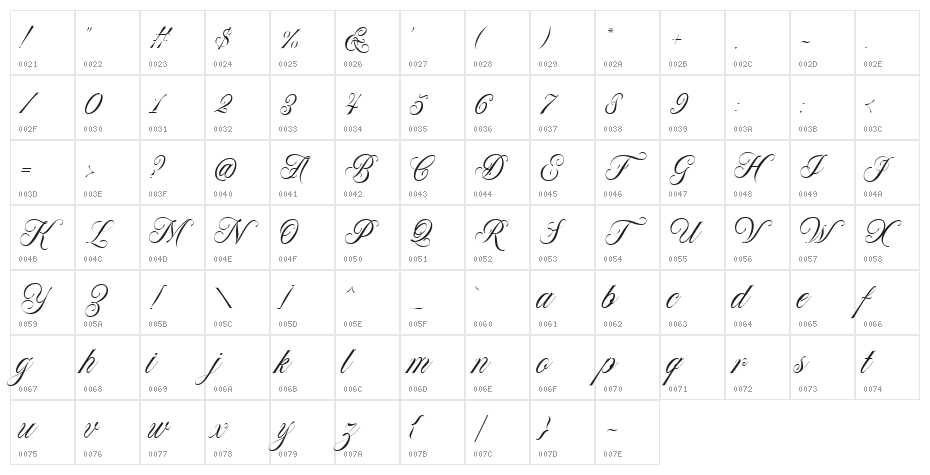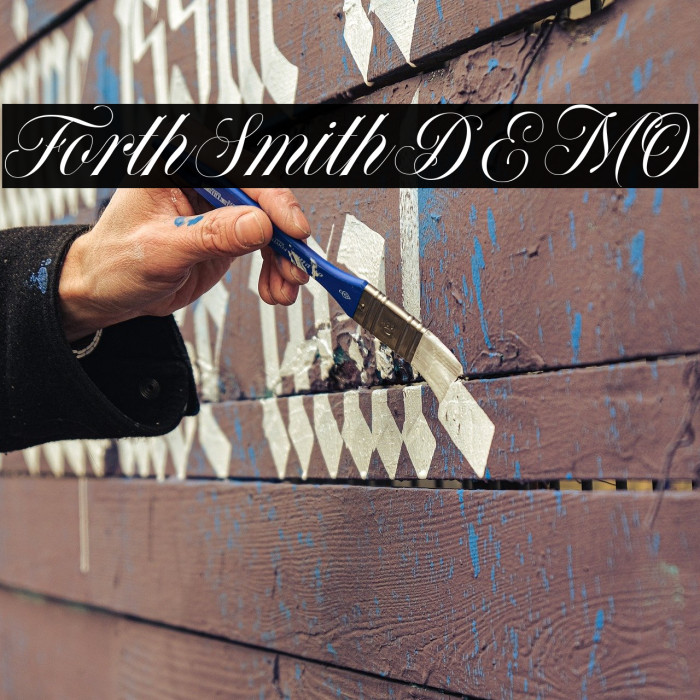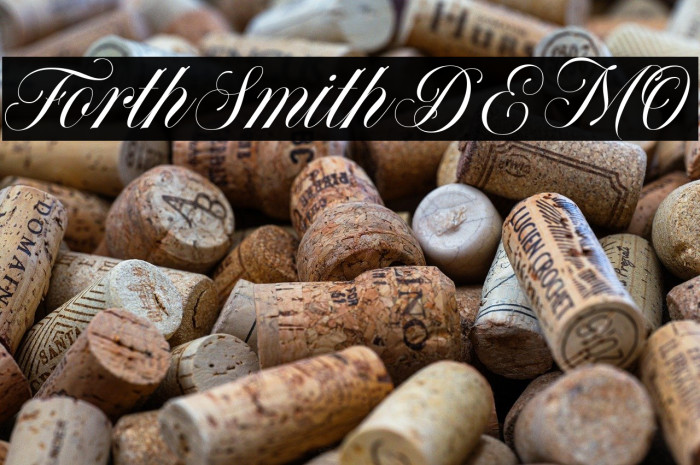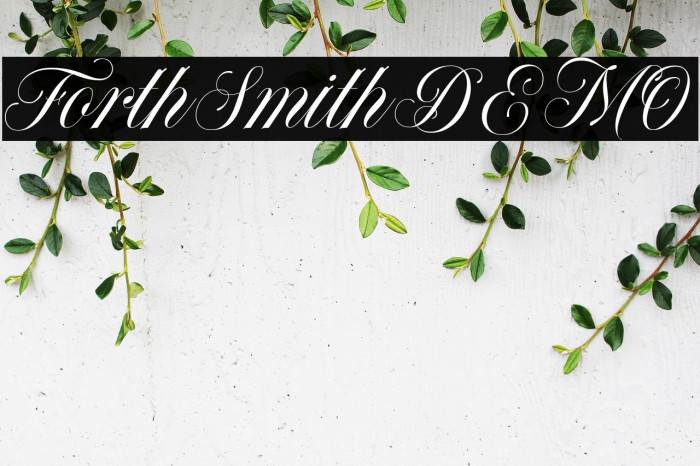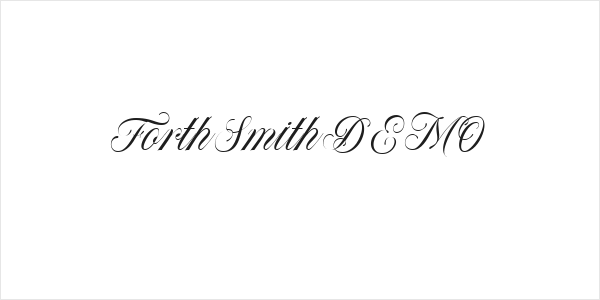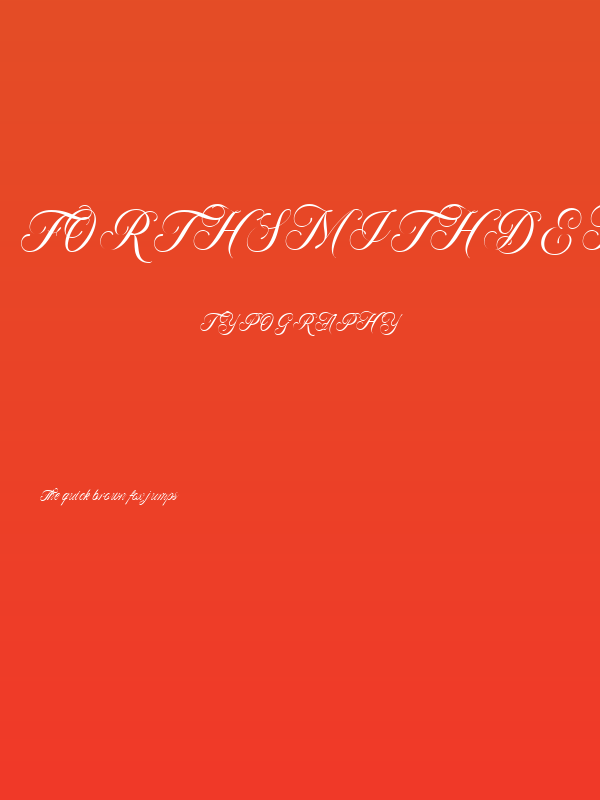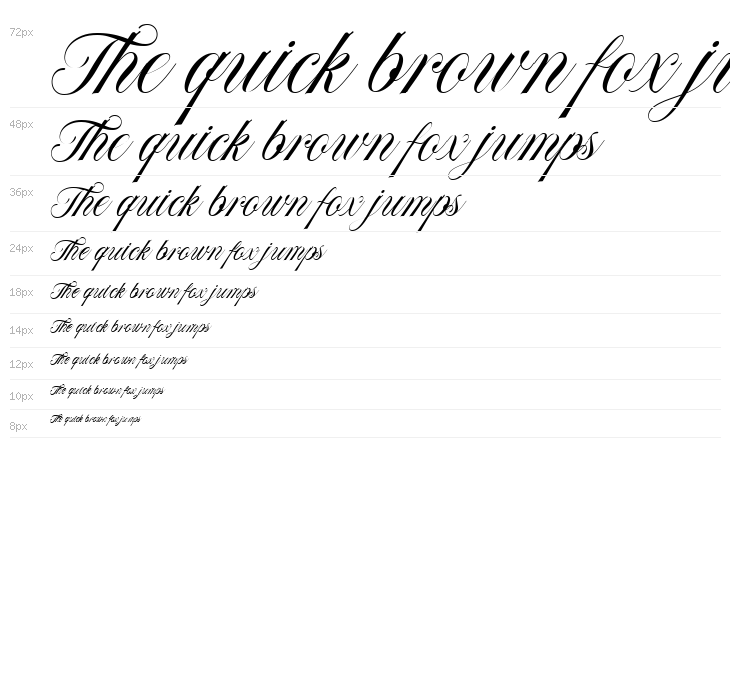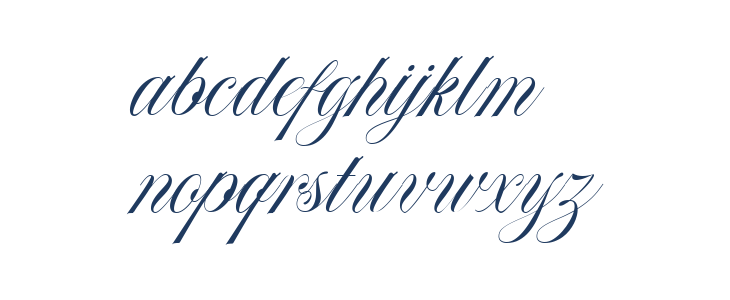
ForthSmithDEMO Font
ForthSmithDEMO Description
This elegant script font features a sophisticated and flowing design, characterized by its intricate and ornate letterforms. The uppercase letters are adorned with delicate swashes and flourishes, adding a touch of luxury and refinement. The lowercase letters maintain a consistent slant, enhancing the font's graceful appearance. The numerals and special characters are equally ornate, ensuring a cohesive look across all text elements. This font's high contrast between thick and thin strokes adds to its dramatic and stylish presence, making it ideal for formal and decorative applications.
| Proposed Projects | Ideal for wedding invitations, luxury branding, elegant packaging, and decorative headlines. |